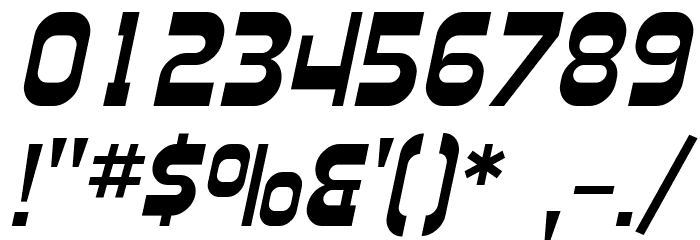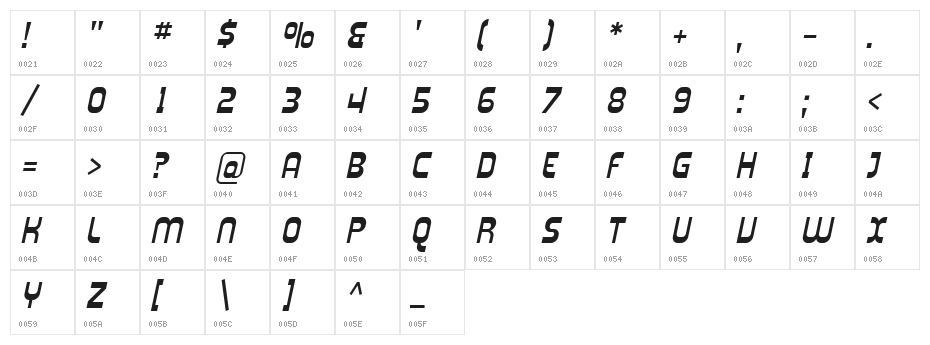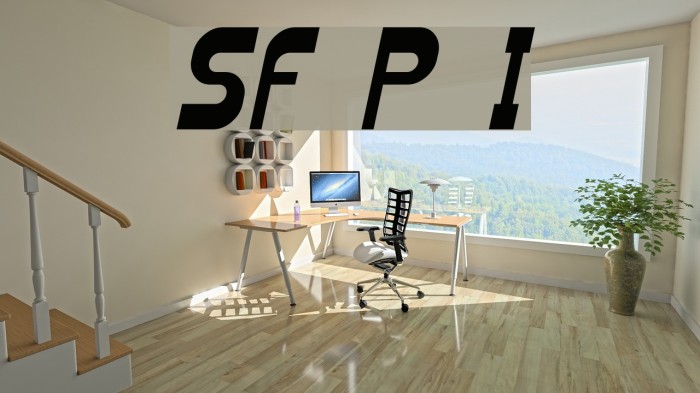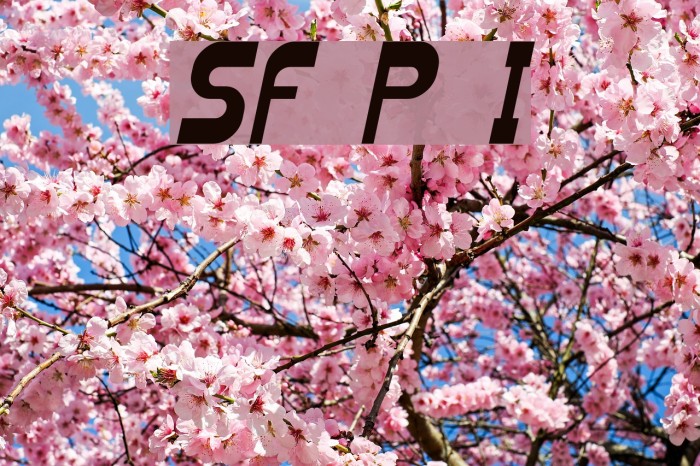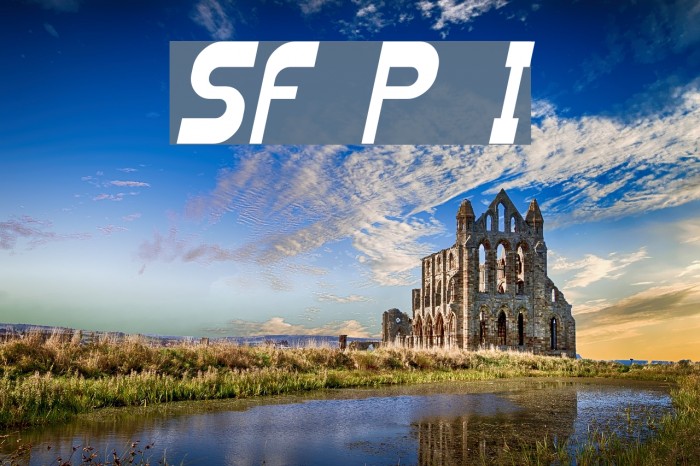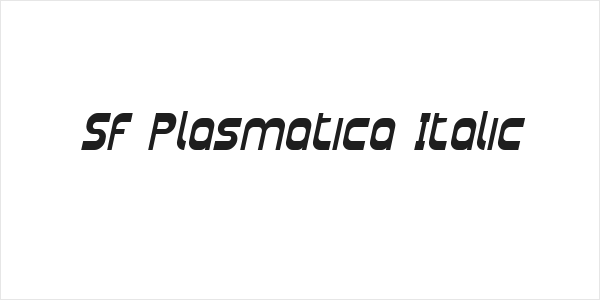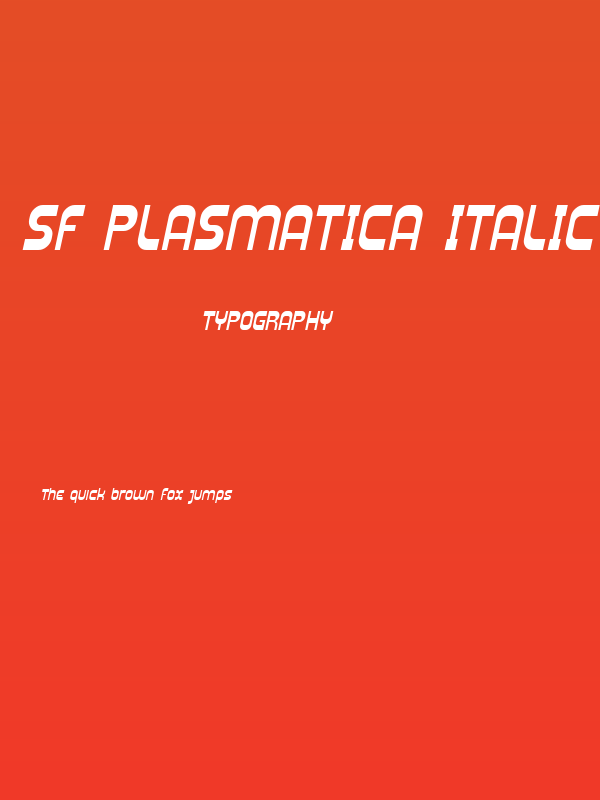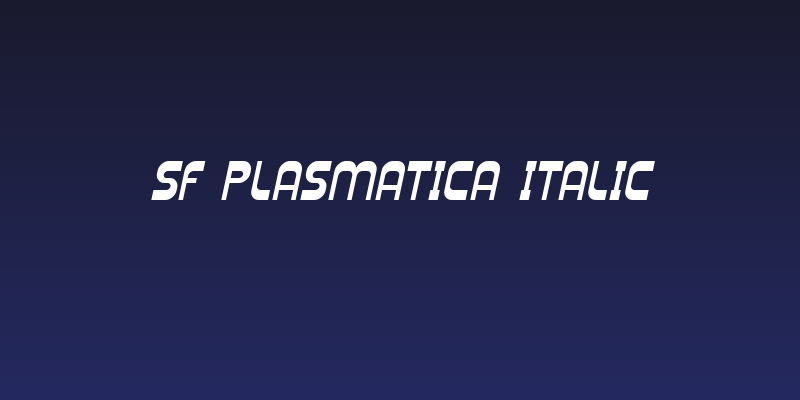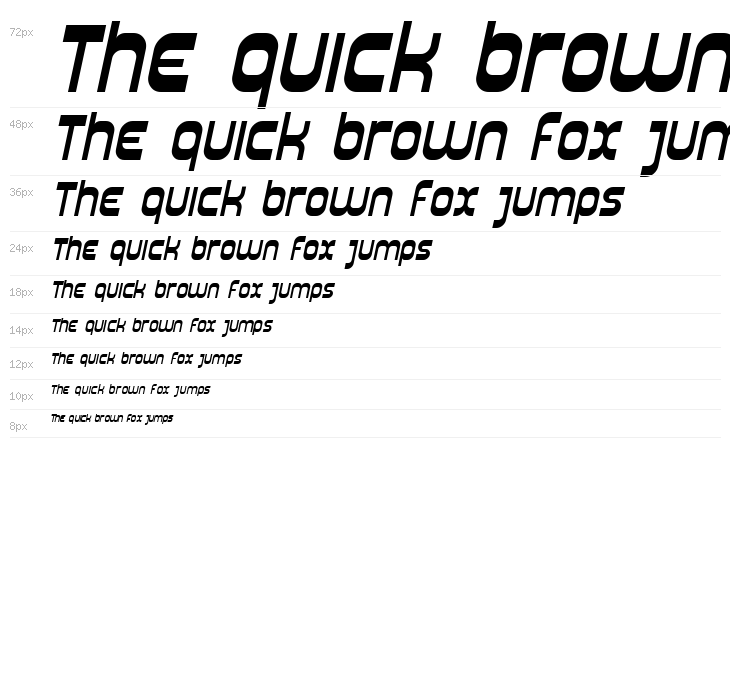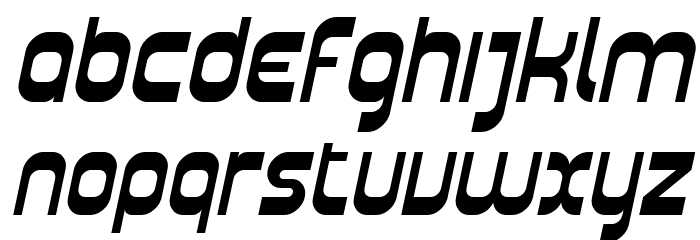
SF Plasmatica Italic Font
SF Plasmatica Italic Description
This font features a futuristic and dynamic design with a distinct italic slant, giving it a sense of motion and energy. The characters are bold and slightly condensed, with smooth curves and sharp angles that create a sleek and modern appearance. The uppercase and lowercase letters maintain a consistent style, while the numerals and special characters complement the overall aesthetic. The font's unique style makes it suitable for projects that require a contemporary and tech-inspired look.